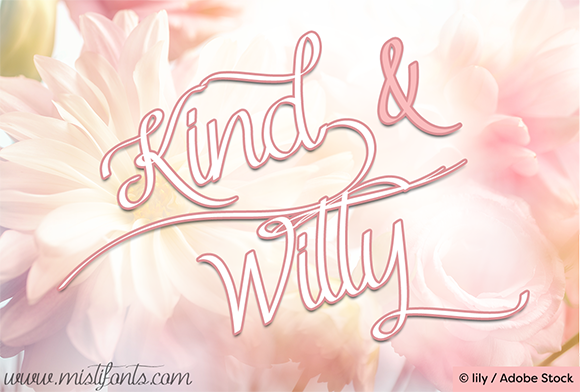
Kind and Witty Font
About Kind and Witty Font
Kind and Witty is an elegant script font that is perfect for your design and craft projects!
Type | (vertical bar) for the swash